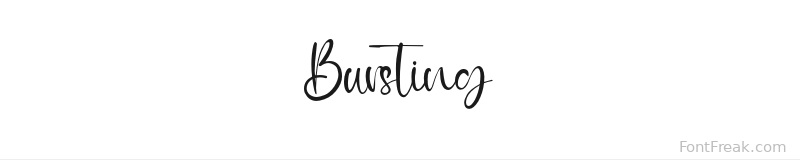
Bursting
About Bursting
The Bursting font by Kong Font is a delightful handwritten typeface that brings a sense of whimsy and playfulness to any design project. Released in 2021, this font features fluid strokes with a medium weight, creating an inviting and approachable aesthetic. The unique characteristics of the Bursting font include a semi-regular stroke contrast and ample letter spacing, which enhances readability while maintaining a casual, artistic flair. Its decorative elements, such as the playful loops and swirls at the terminals, add a charming touch, making it perfect for various creative applications.
This versatile typeface is particularly well-suited for wedding invitations, where it can convey elegance and joy. It also shines in the realm of children's book covers, where its fun and lively style captures the imagination of young readers. Additionally, the Bursting font is an excellent choice for social media graphics, helping content creators craft eye-catching posts that engage their audience. Restaurant menus can benefit from its inviting appearance, enticing diners with a warm and friendly vibe. Graphic designers and small business owners will find this font invaluable for branding projects, ensuring their message resonates with a target audience looking for authenticity and creativity.
What sets the Bursting font apart is its ability to evoke emotions while maintaining professionalism. The combination of its cheerful design and readability makes it a standout choice for anyone looking to infuse their projects with personality. With the Bursting font free download available, designers can easily incorporate this enchanting typeface into their work, making it a must-have addition to their font library. Whether crafting a heartfelt invitation or a vibrant promotional piece, Bursting is sure to leave a lasting impression.